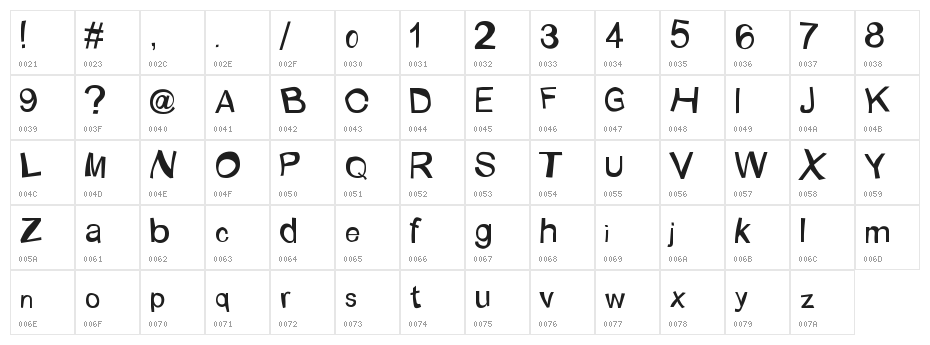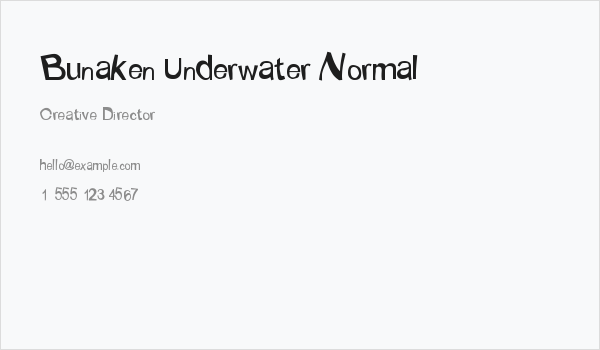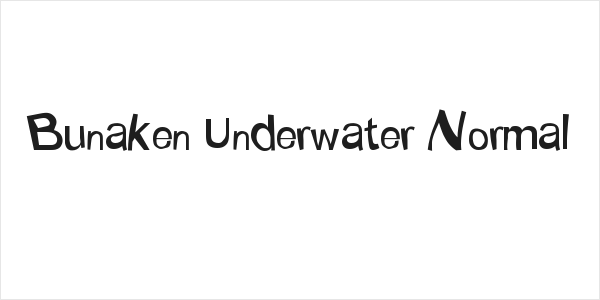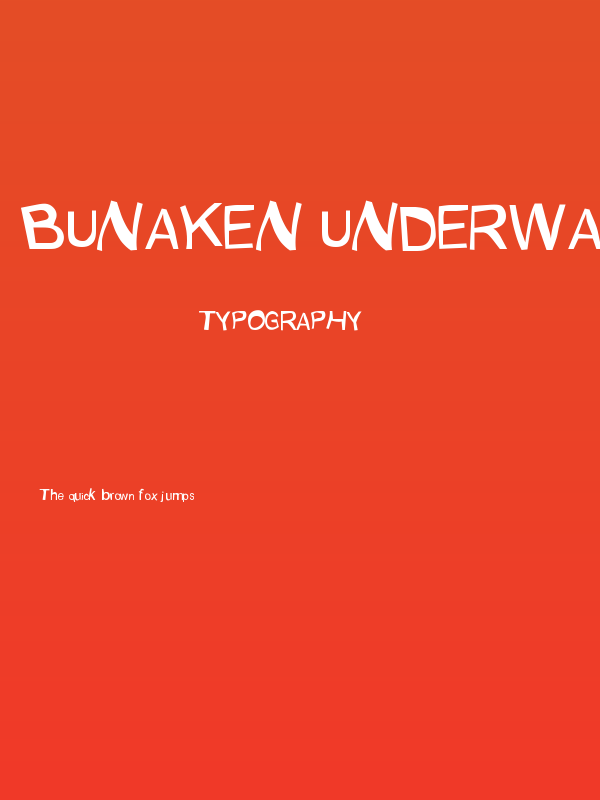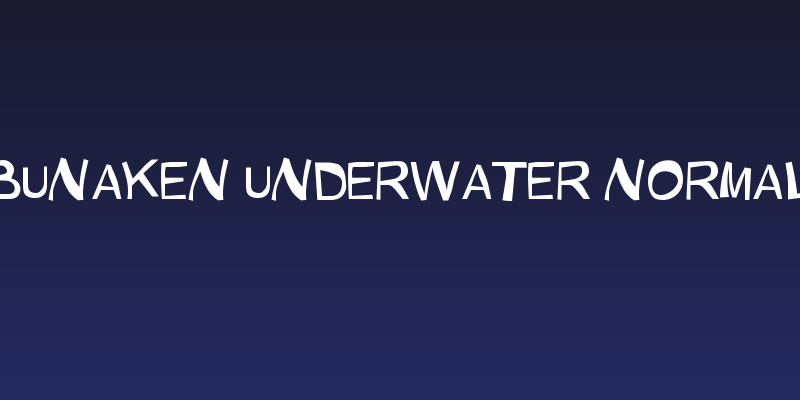
Bunaken Underwater Normal Font
Bunaken Underwater Normal Description
This font features a playful and dynamic style with a slightly irregular and hand-drawn appearance. The characters have a whimsical quality, with varying stroke thickness and a sense of movement. The uppercase letters are bold and slightly tilted, adding to the casual and informal feel. The lowercase letters maintain a consistent style, with rounded edges and a friendly demeanor. Numbers and special characters follow the same playful design, making this font suitable for creative and fun projects. The overall look is approachable and lively, perfect for capturing attention in a lighthearted manner.
Overall StylePlayful
Proposed ProjectsIdeal for children's books, playful branding, party invitations, and creative posters.